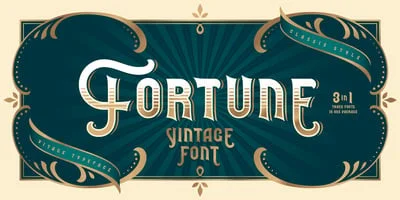
Fortune Vintage Font
Fortune Vintage Font is ideal for luxury casino branding, vintage gambling advertising, classic card game designs, retro entertainment venues, prohibition-era themed events, vintage lottery promotions, classic fortune telling signage, antique gaming equipment, heritage hospitality marketing, and nostalgic entertainment communications.
What makes Fortune Vintage Font exciting is its golden-age elegance that perfectly captures the sophisticated glamour and lucky charm found in classic gambling culture and vintage entertainment luxury. This typeface features ornate letterforms with casino-inspired proportions and fortune-themed details that evoke the excitement of high-stakes gaming and the timeless appeal of vintage Vegas glamour. The font's lucky personality and vintage gaming authenticity make it ideal for entertainment brands seeking to convey prosperity, sophistication, and the thrilling fortune that comes from classic gaming experiences and vintage entertainment excellence.
Fortune Vintage Font family includes lucky weight variations and casino-inspired alternatives that enhance its vintage gaming appeal while providing design flexibility for entertainment and luxury applications. The font features golden ligatures, fortune-themed ornaments, and lucky character variations that create authentic vintage casino atmosphere for entertainment and luxury branding.
Entertainment companies and luxury gaming venues consistently choose Fortune Vintage Font for projects requiring authentic vintage gaming appeal and classic casino credibility. The font's fortunate character excels in applications targeting gaming enthusiasts, luxury entertainment seekers, and vintage culture appreciators who value classic gaming sophistication and timeless entertainment elegance. Whether you're designing for luxury casinos, vintage entertainment venues, or classic gaming products, this prosperous typeface delivers the vintage gaming authenticity and golden-age glamour that resonates with audiences seeking genuine entertainment luxury and the sophisticated fortune that defines classic gaming culture and vintage entertainment excellence.